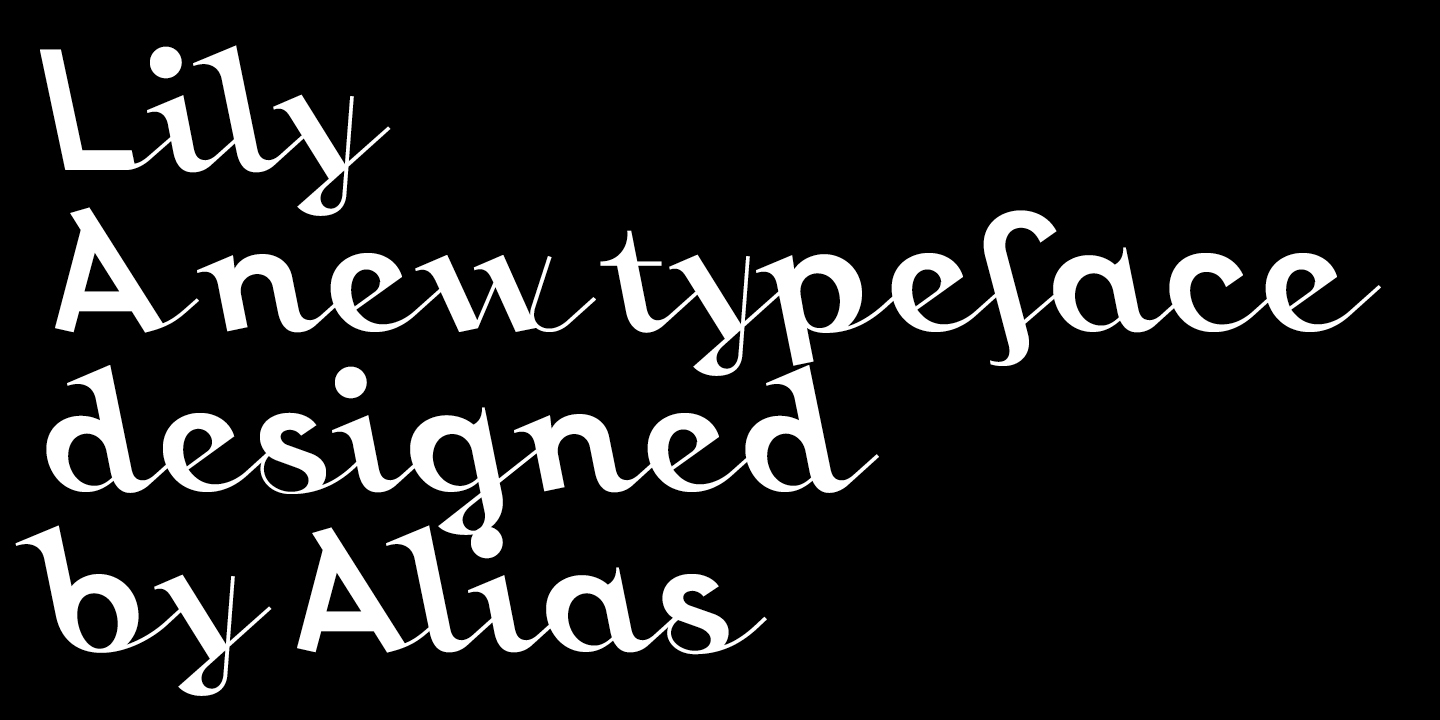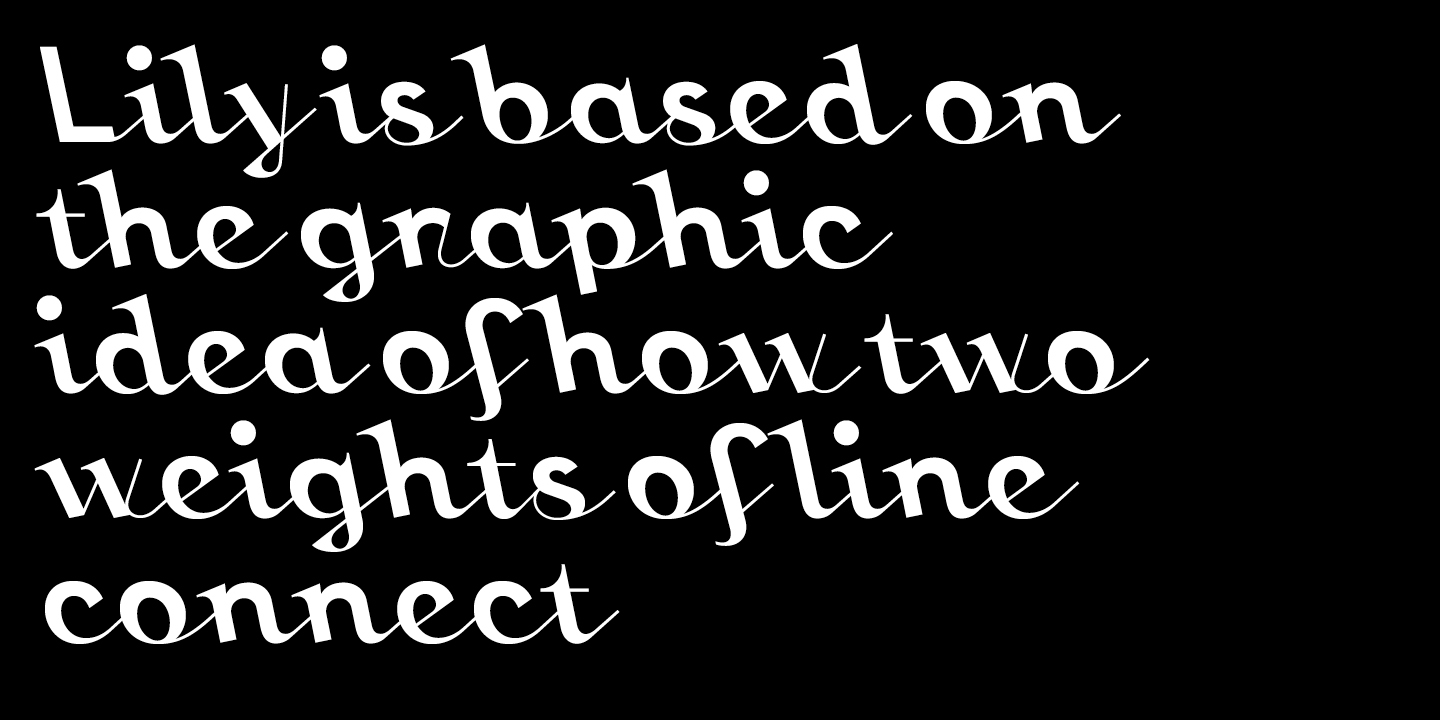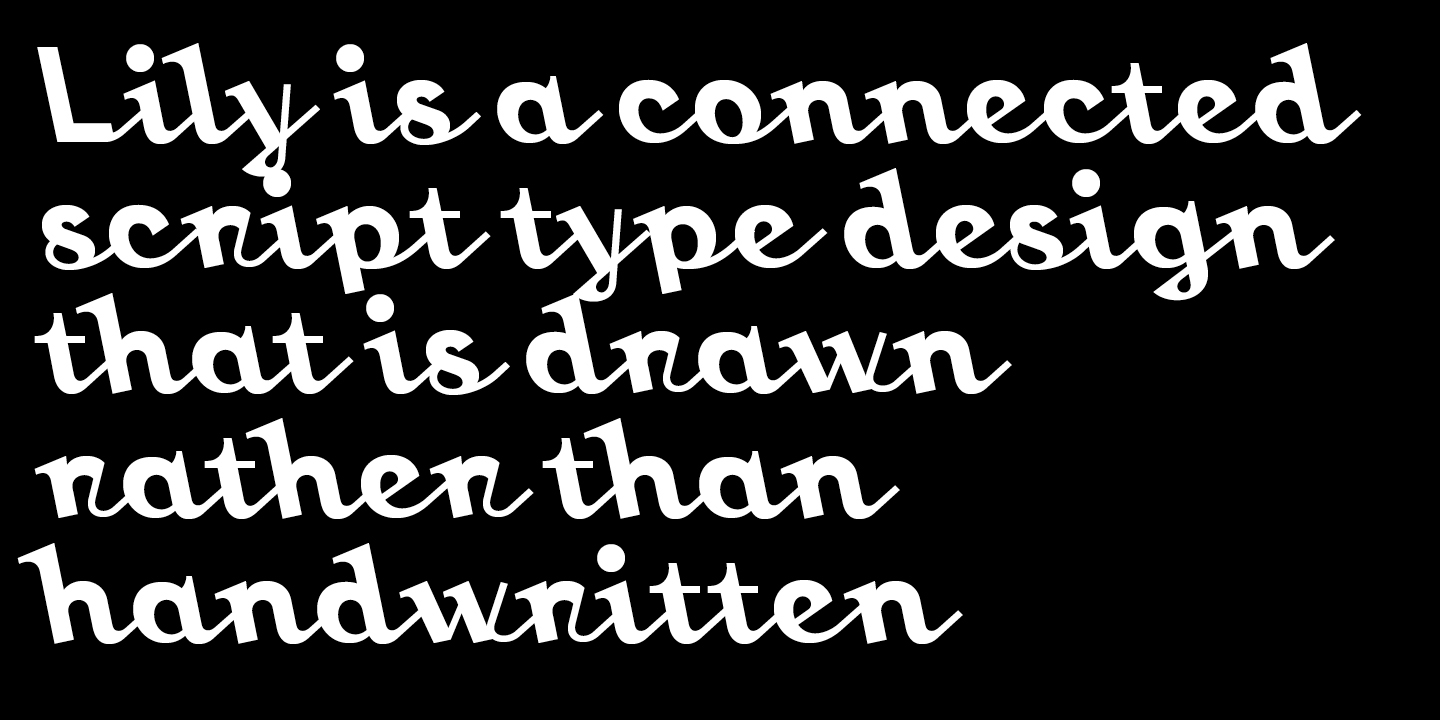
Lily
Font Family by Alias
As with all our typefaces, we are searching for a point of difference, something that separates them from their surroundings. The idea of a seriffed script typeface is interesting, as the two are very separate ideas, certainly in calligraphic script lettering where serifs would interrupt the flow of writing. The typeface should retain a suggestion of having been written, or being possible to write. It should have a sense of formality, and as it was named after my daughter a beauty or specialness, but expressed in an original way.
The backwards incline immediately gave the typeface an unusual character shape and a modern spirit. The lower case characters have a thick and thin hairline stress, and how they connect is based on how these thick and thin line weights combine, not the mechanics of writing. This results in an odd top-heaviness in the lower case that gives Lily a particularly unique character. Lily has what you might call an occasional serif in its lower case, which again pays no relation to writing but echoes the weight and angle of the thin connecting line. It also adds an extra sense of movement and lightness. This sharpness can be seen in the loop of the g and y, which also maintain the same angle in the connecting line.